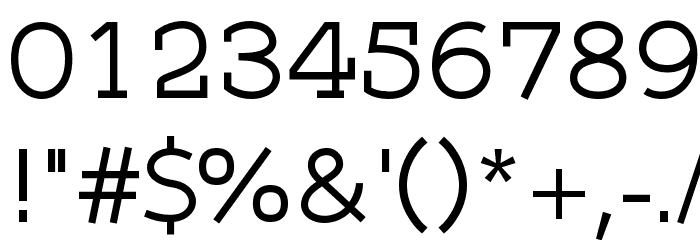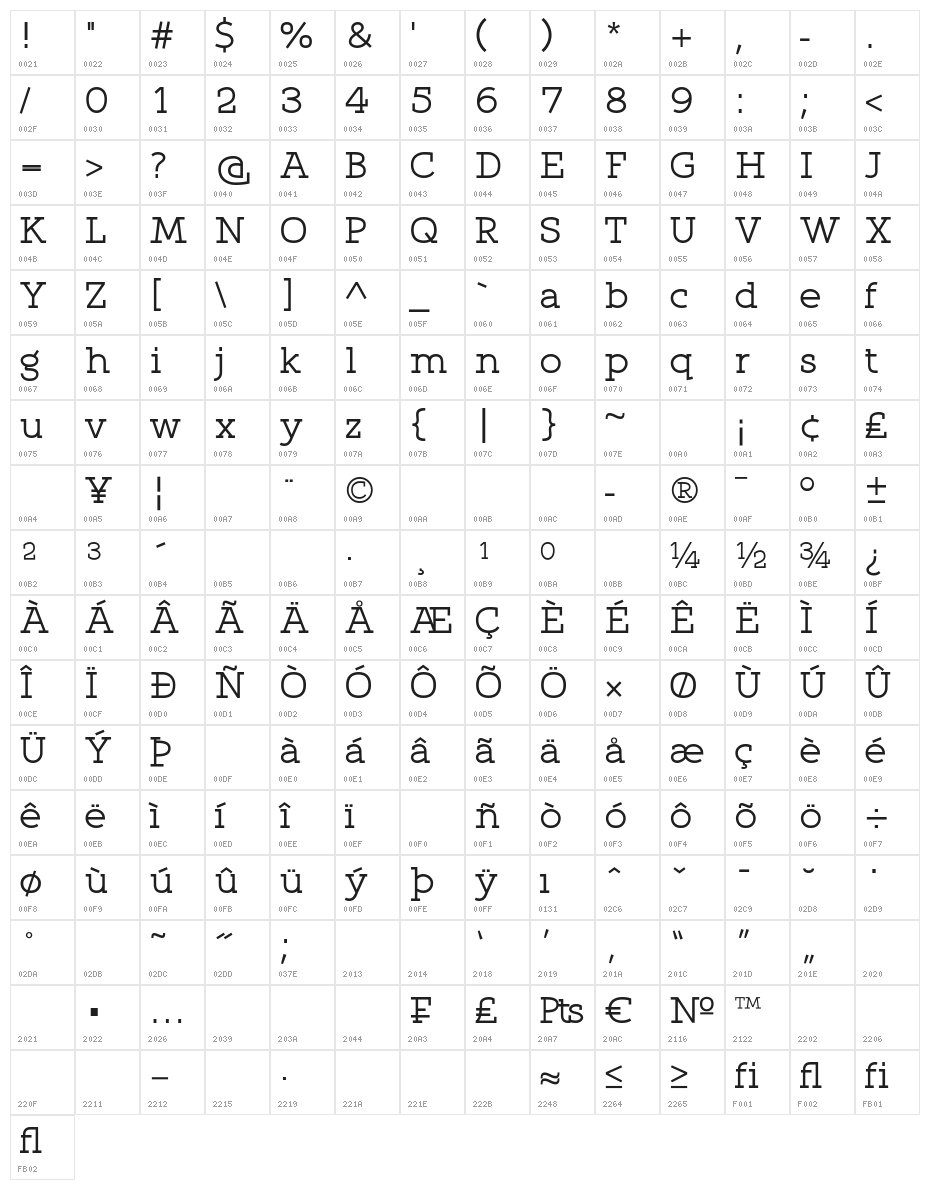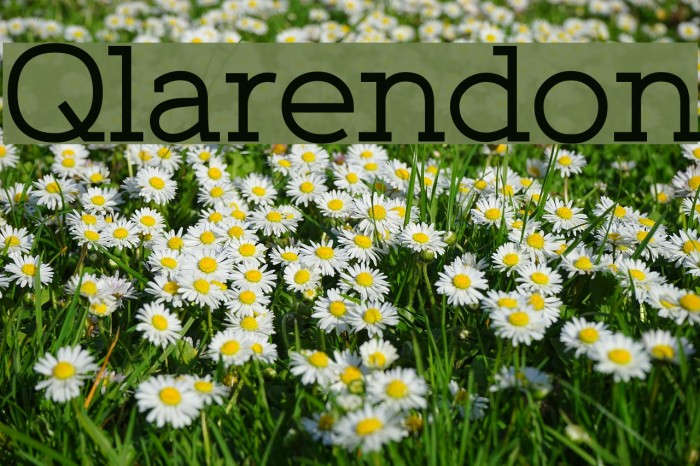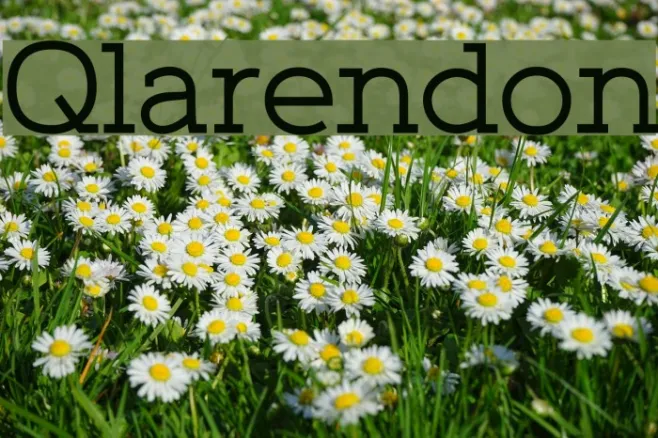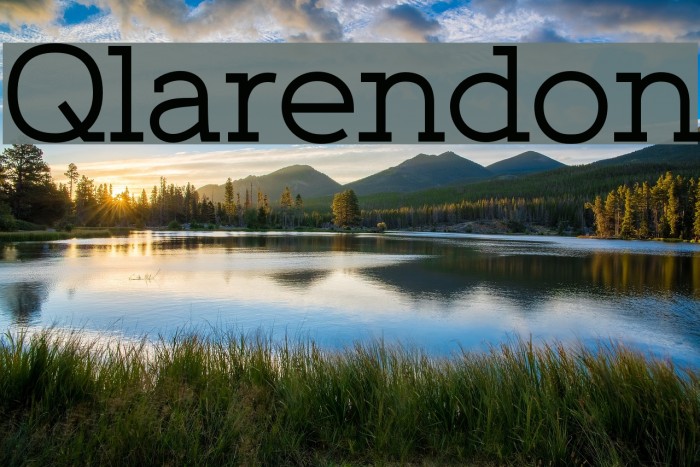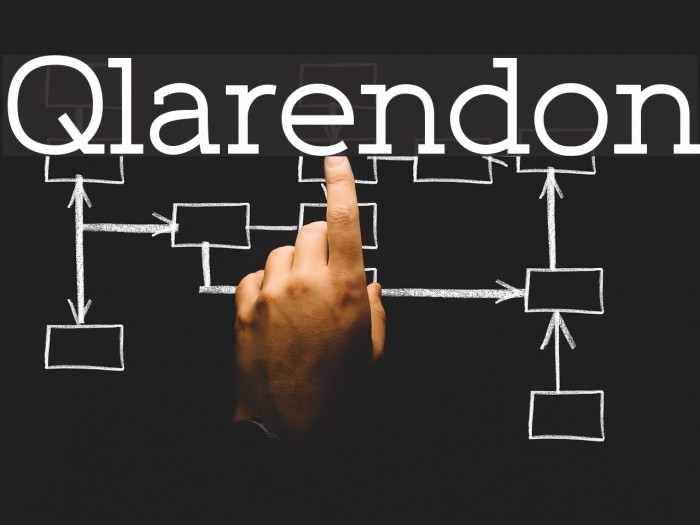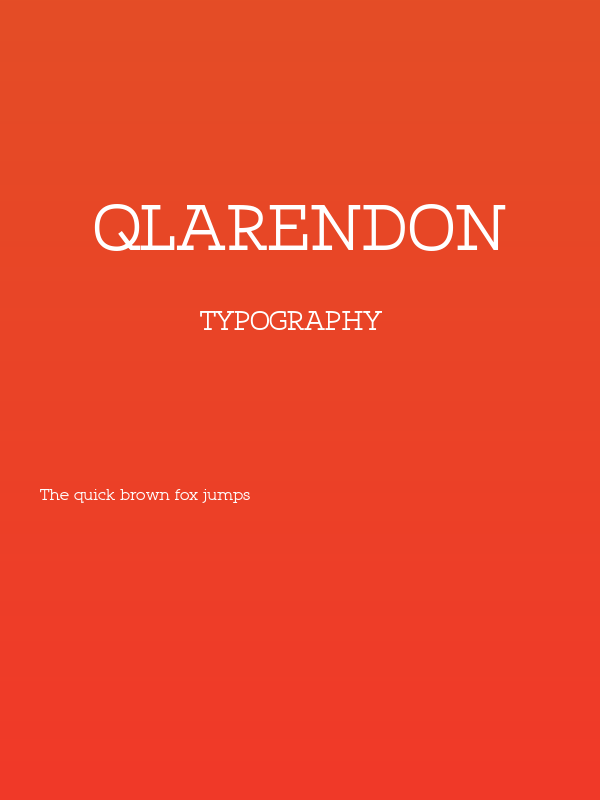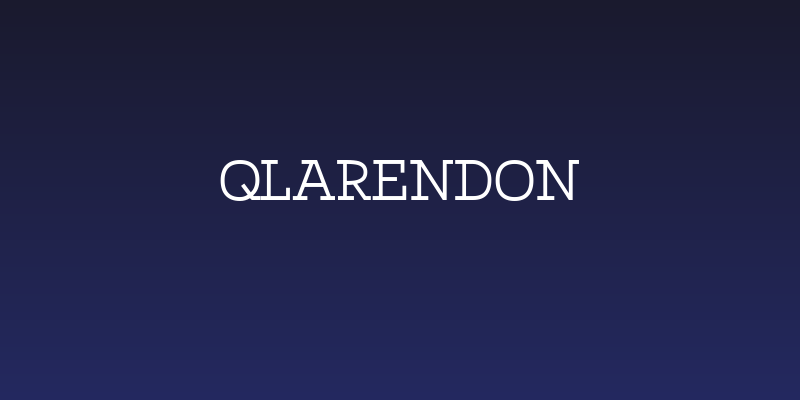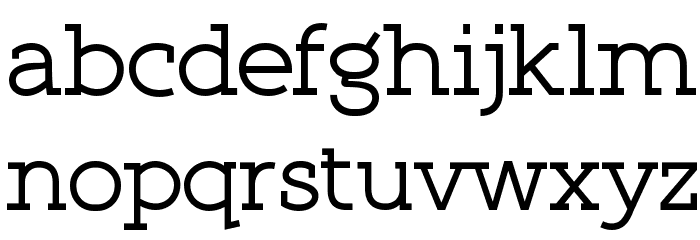
Qlarendon Font
Qlarendon Description
This font is a modern take on the classic slab serif style, characterized by its bold, block-like serifs and clean lines. The uppercase letters are robust and commanding, while the lowercase letters maintain a balance of readability and style. The numerals are clear and distinct, making them suitable for both display and text settings. Special characters are well-integrated, offering versatility for various design needs. The overall appearance is both professional and approachable, making it suitable for a wide range of applications.
| Use Case | Headlines, Logos, Editorial Design |
| Proposed Projects | Ideal for branding, headlines, posters, and editorial design where a strong, modern presence is desired. |